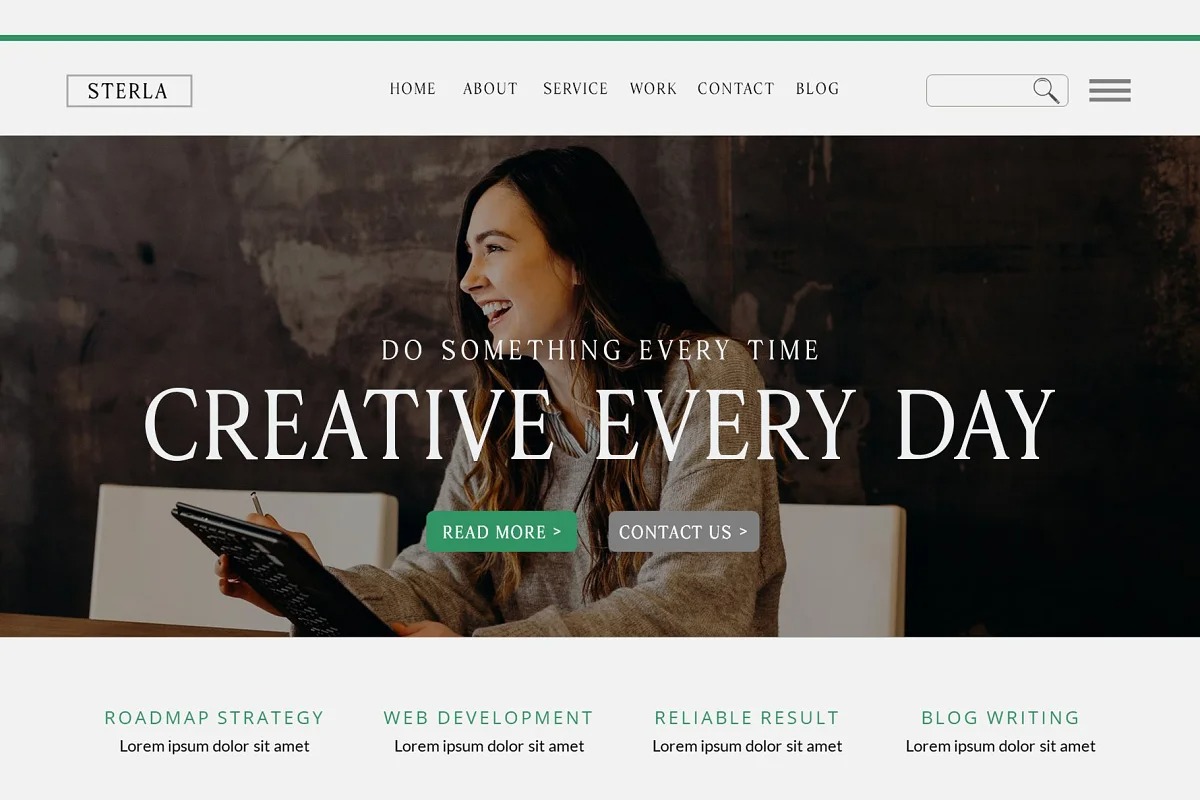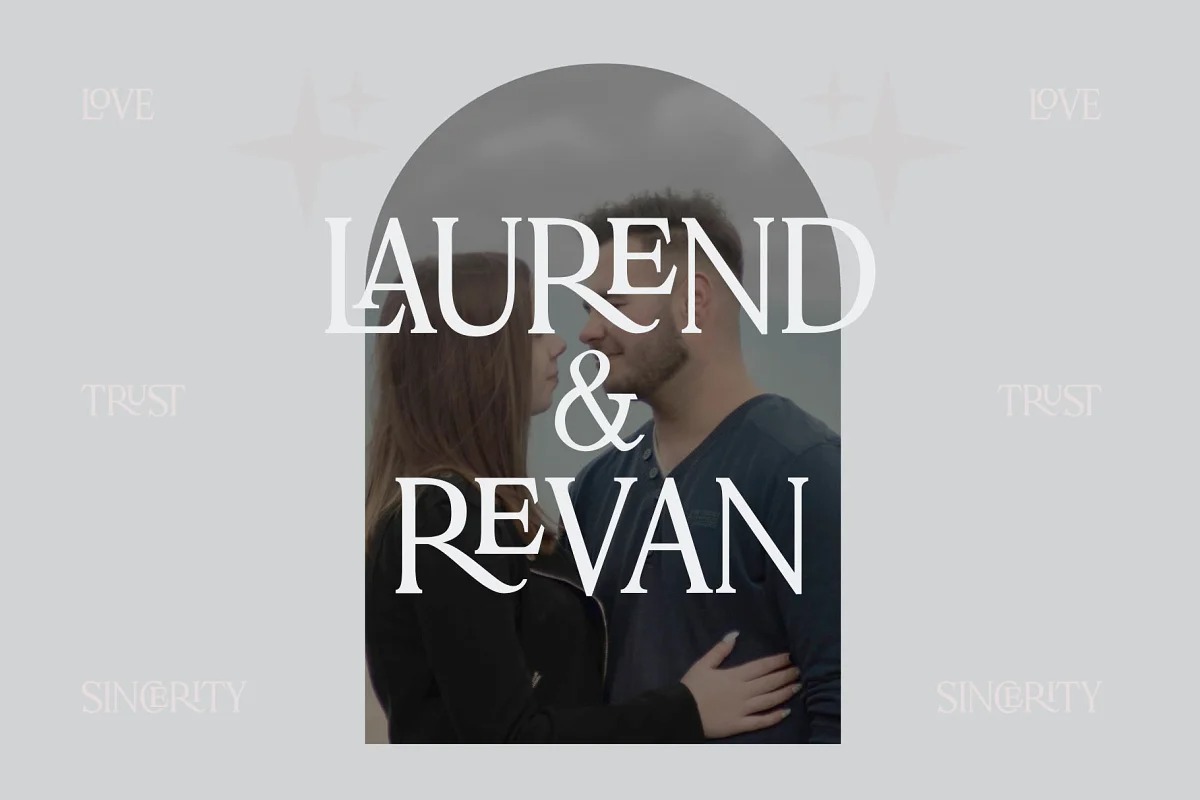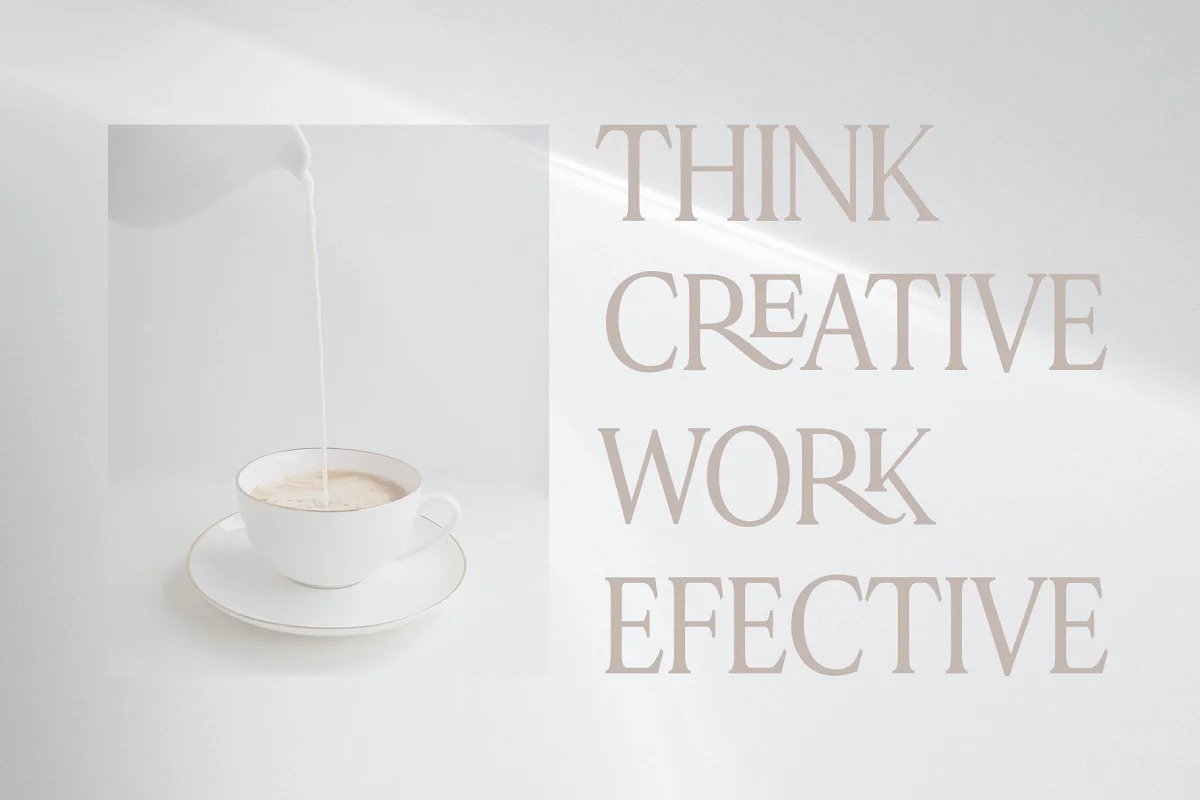
Sterla Font
Sterla Serif Font
This is a sophisticated, charming sans serif font with a fashionable touch. Choose the letter you like from a variety of variations to get a look that suits your taste. Sterla is a very versatile font, It is a medium contrast display font perfect for branding projects, logos, wedding designs, social media posts, advertisements, product packaging, product designs, labels, photography, watermarks, invitations, stationery and any project, made with a high level of readability. Sterla moderen stylish typeface is a modern fashion serif font, each letter has been carefully crafted to make your text look unique.